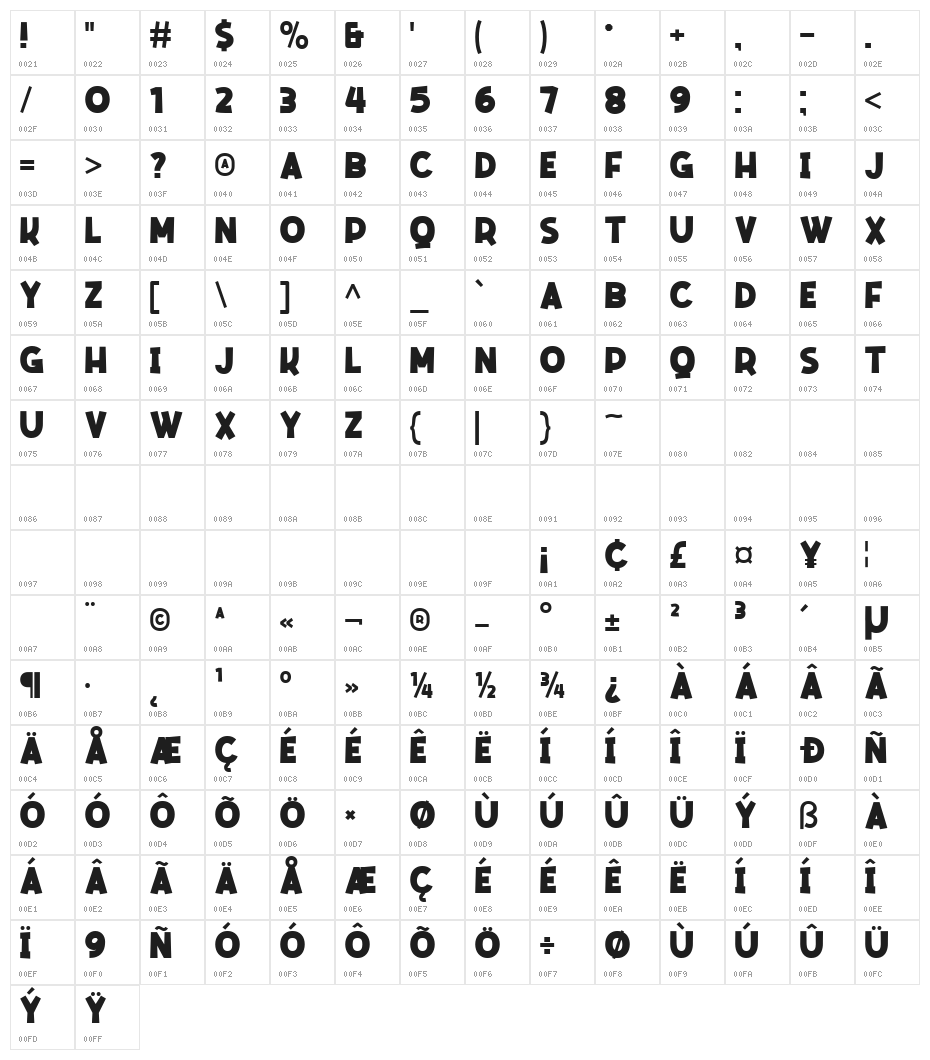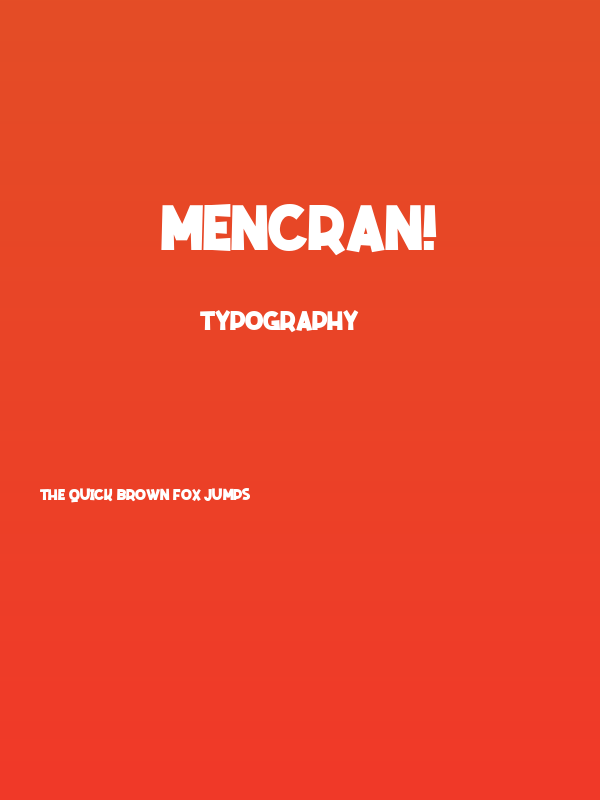
Mencran! Font
Mencran! Description
This font features bold, playful characters with a strong presence. The letters are thick and slightly irregular, giving a hand-drawn, cartoonish feel. The uppercase and lowercase letters maintain a consistent weight, contributing to a cohesive look. Numbers and special characters are equally bold, ensuring readability and impact. The font's style is reminiscent of comic book lettering, making it suitable for designs that require a fun and energetic vibe. Its unique character shapes and bold strokes make it stand out in any design context.
| Overall Style | Playful, Cartoonish |
| Use Case | Headlines, Posters, Branding |
| Proposed Projects | Ideal for comic books, children's books, playful branding, and posters. |